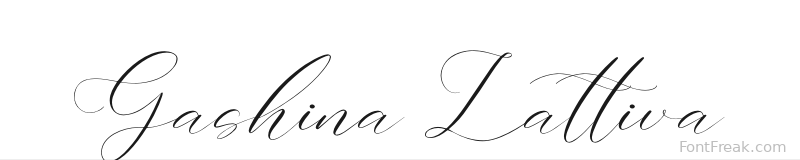
Gashina Lattiva
About Gashina Lattiva
Gashina Lattiva, crafted by Perspectype Studio in 2021, is an exquisite script font that embodies elegance and sophistication. This typeface features a flowing, cursive style with graceful strokes that create a sense of movement and fluidity. The design showcases a medium stroke weight, complemented by subtle contrasts that enhance its visual appeal. The spacing is well-balanced, allowing for readability while maintaining an artistic flair. Decorative elements, such as the sweeping ascenders and playful swashes, add a whimsical touch to the overall aesthetic.
This versatile font is ideal for a variety of use cases. It shines in wedding invitations, where its romantic curves can beautifully convey heartfelt sentiments. Additionally, Gashina Lattiva is perfect for branding projects, such as restaurant menus, where it can evoke a sense of charm and warmth. Graphic designers will find it suitable for creating stylish logos that stand out in a crowded marketplace. Furthermore, content creators can use this font for social media graphics, making their posts visually engaging and memorable.
Targeting graphic designers, small business owners, and content creators, Gashina Lattiva offers a unique tool for enhancing visual communications. Its distinctive character makes it an appealing choice for anyone looking to add a touch of elegance to their projects.
What sets Gashina Lattiva apart is its ability to blend sophistication with a sense of personal touch. This font is not just about aesthetics; it conveys emotion and creativity, making it a valuable addition to any designer's toolkit. With the Gashina Lattiva font free download available, you can easily incorporate this beautiful typeface into your next project and elevate your design with its enchanting charm.